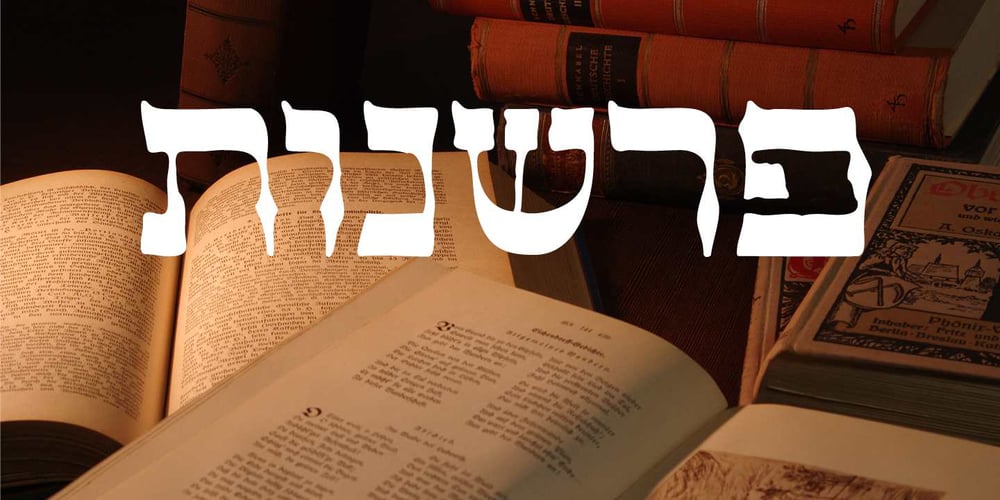
StamMF Font Family was designed by Franziska Baruch and published by Masterfont. StamMF contains 2 styles and family package options. Inspired by old engraving and tombstones. This font is unique by its flow and contrast, enabling traditional typeface gain a new and clear flow and rhythm.